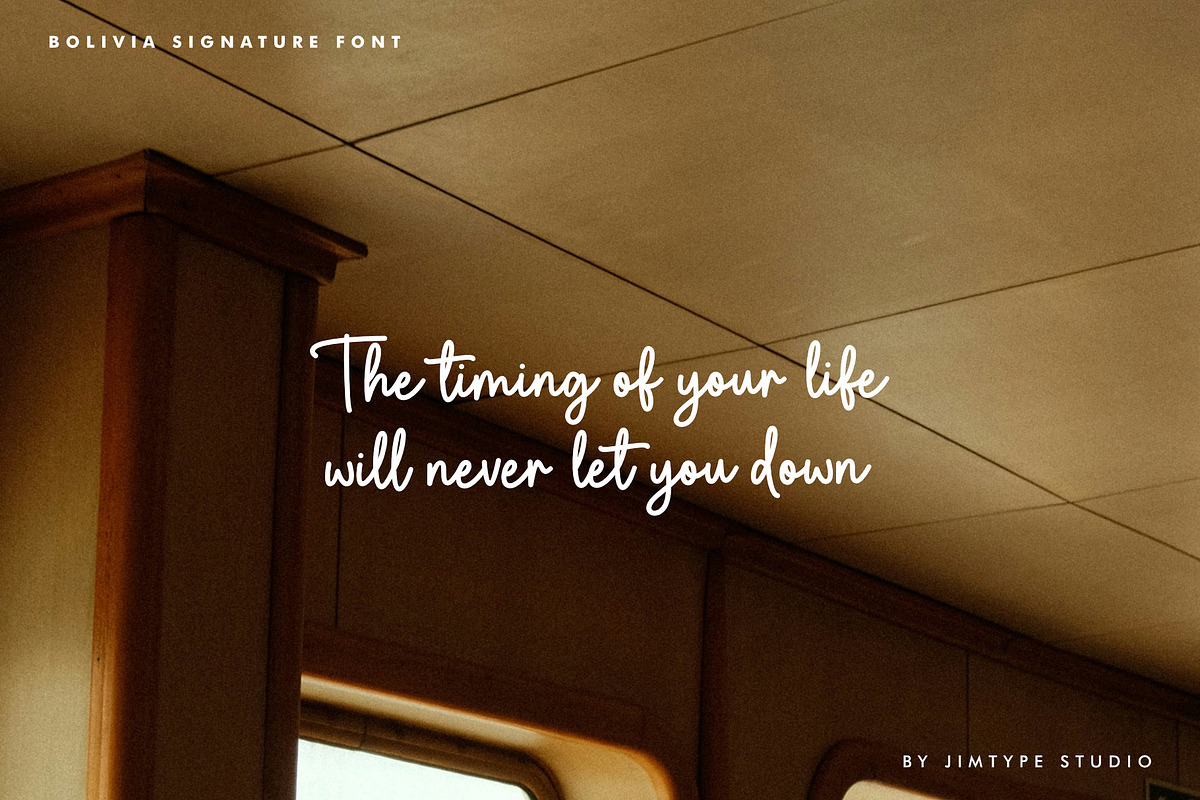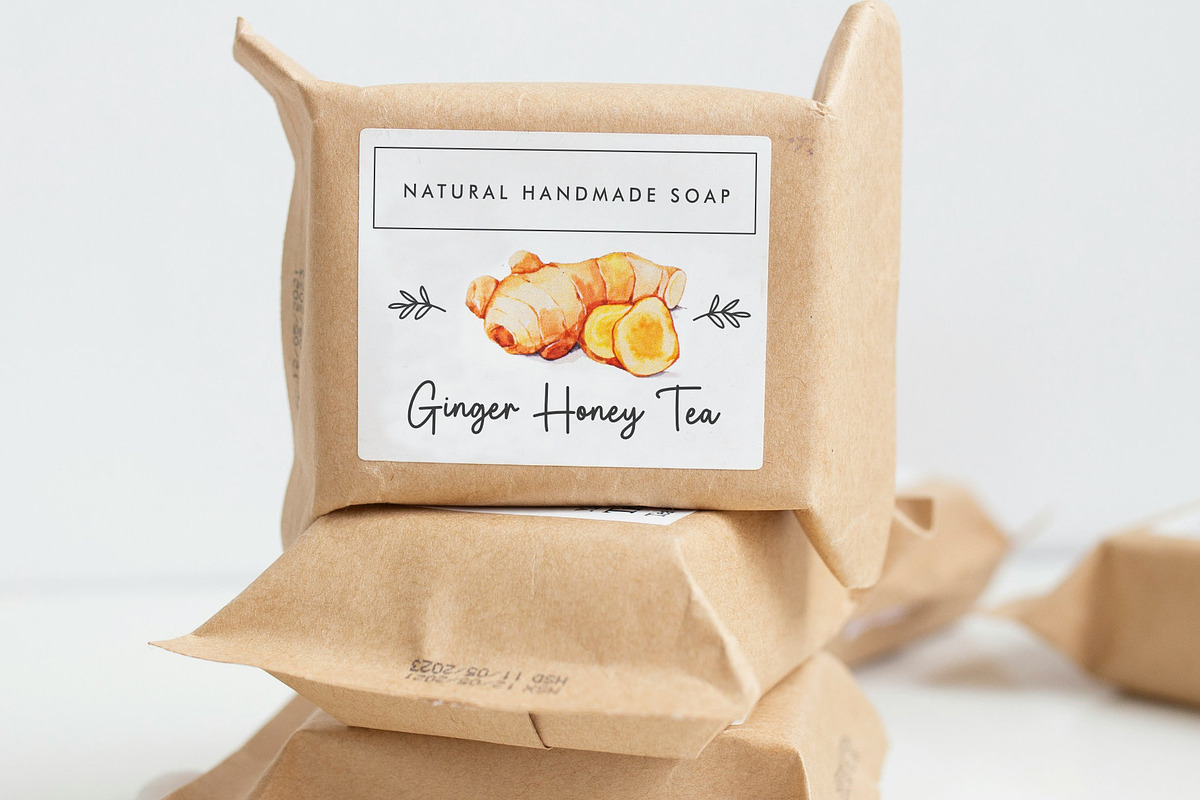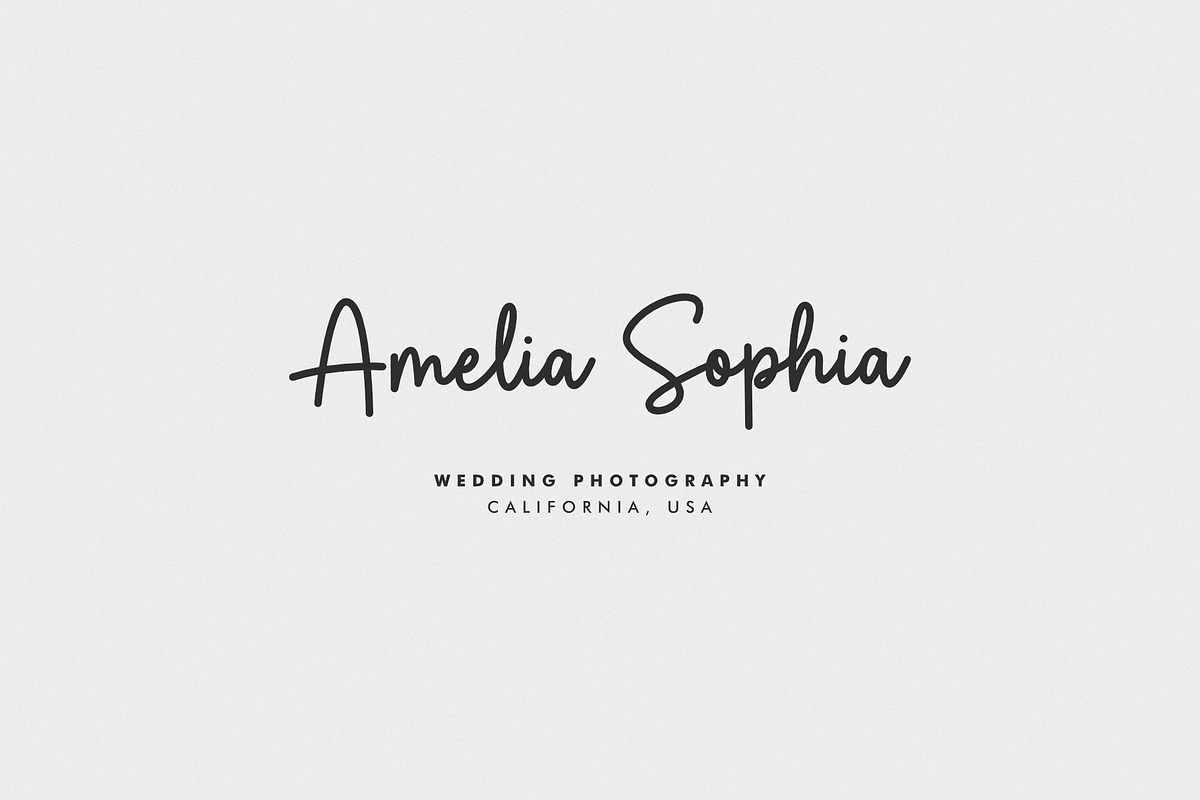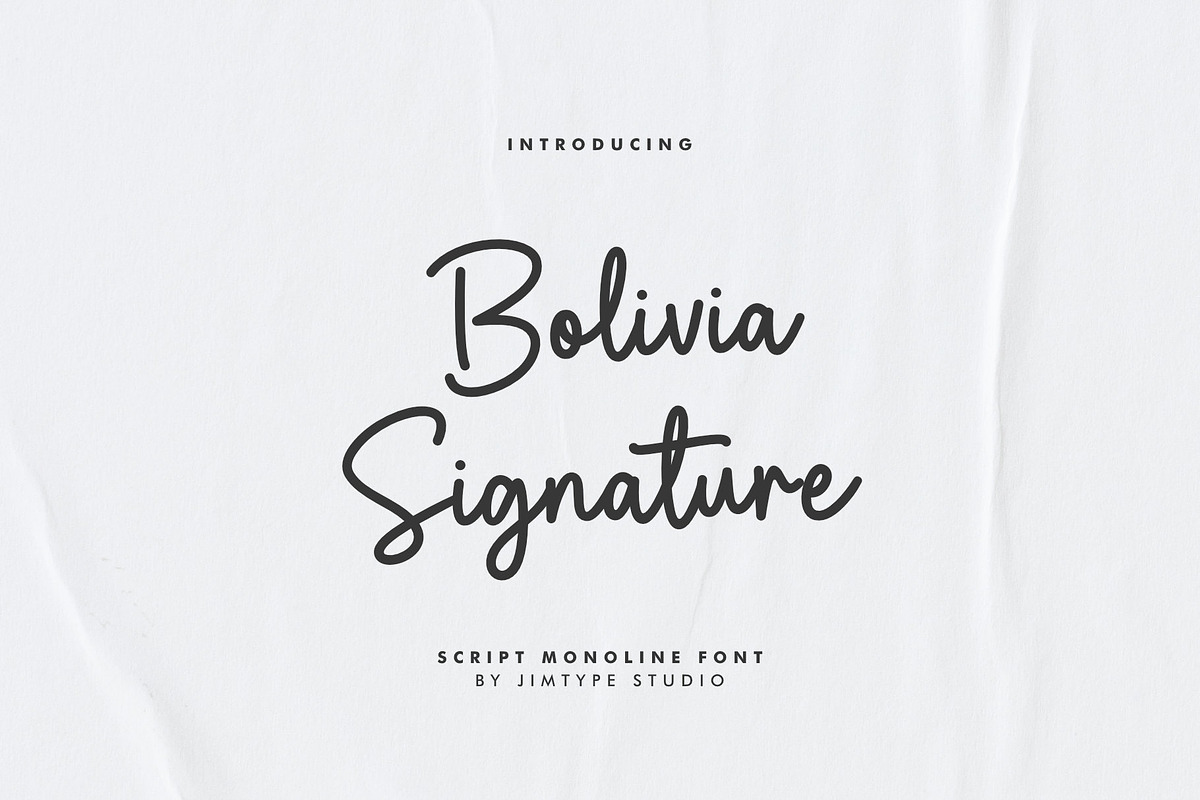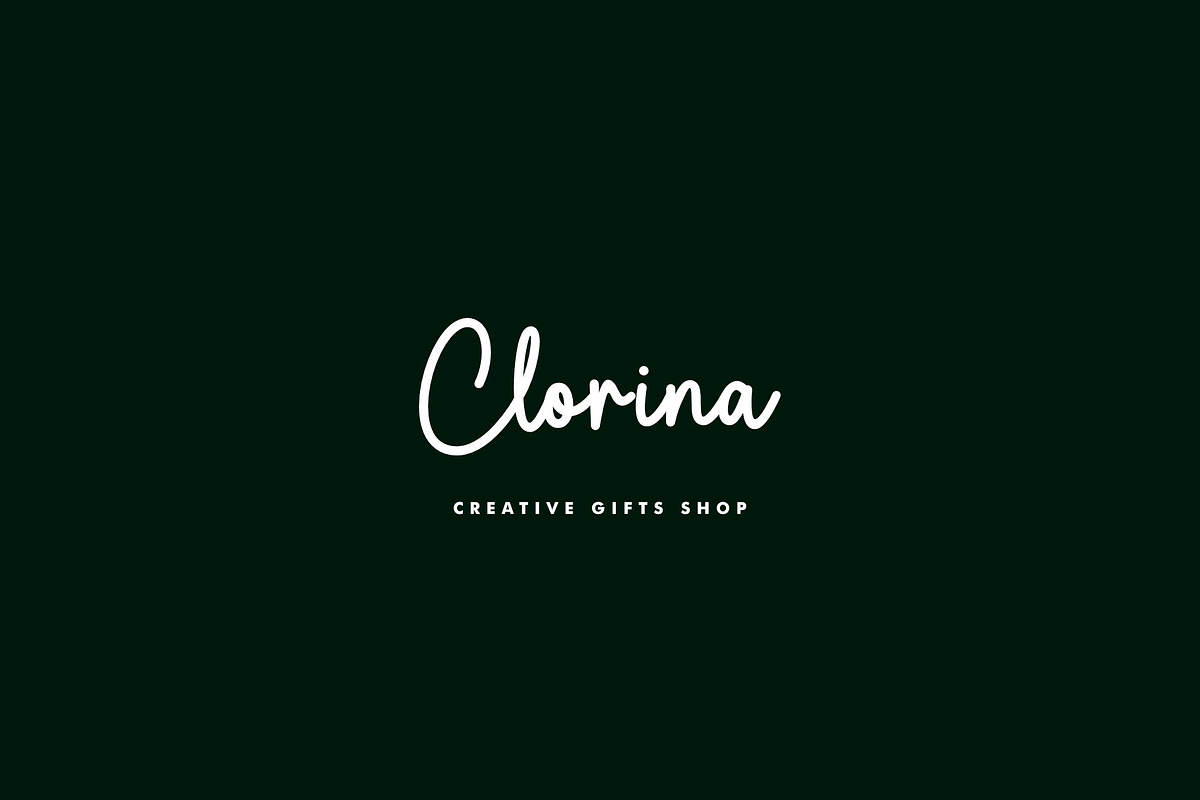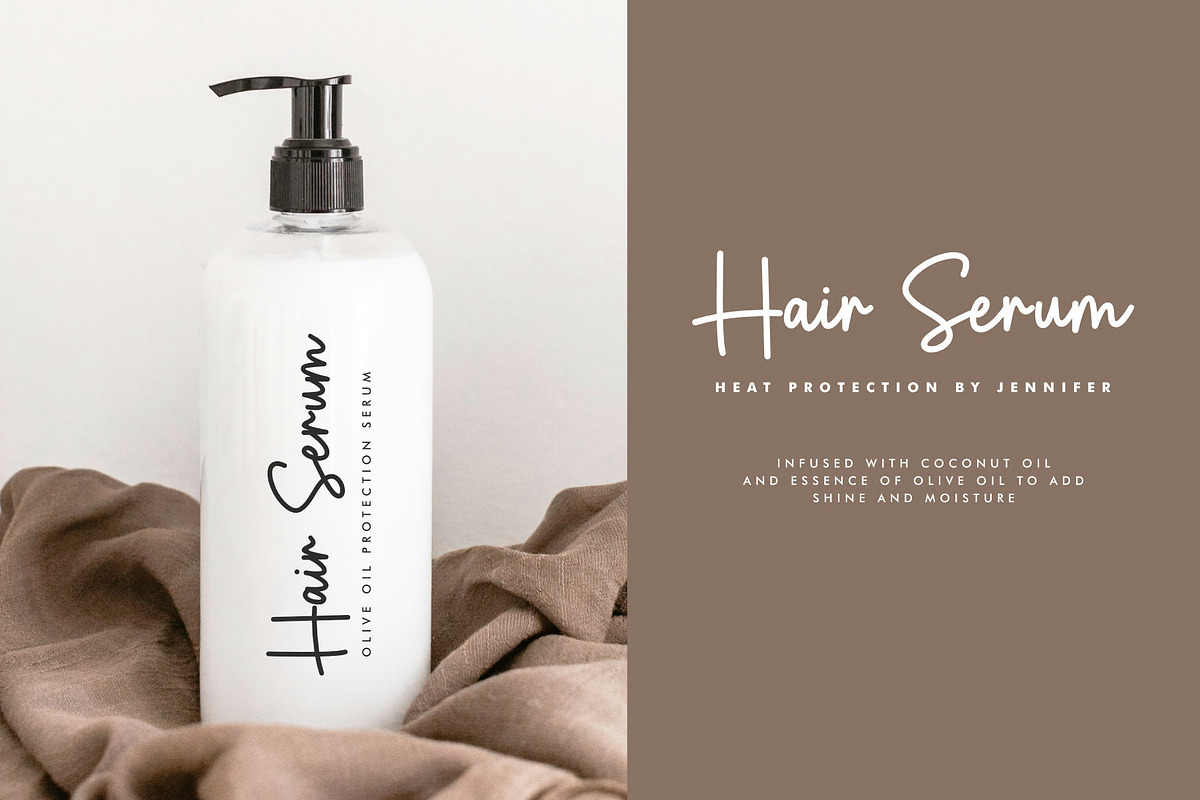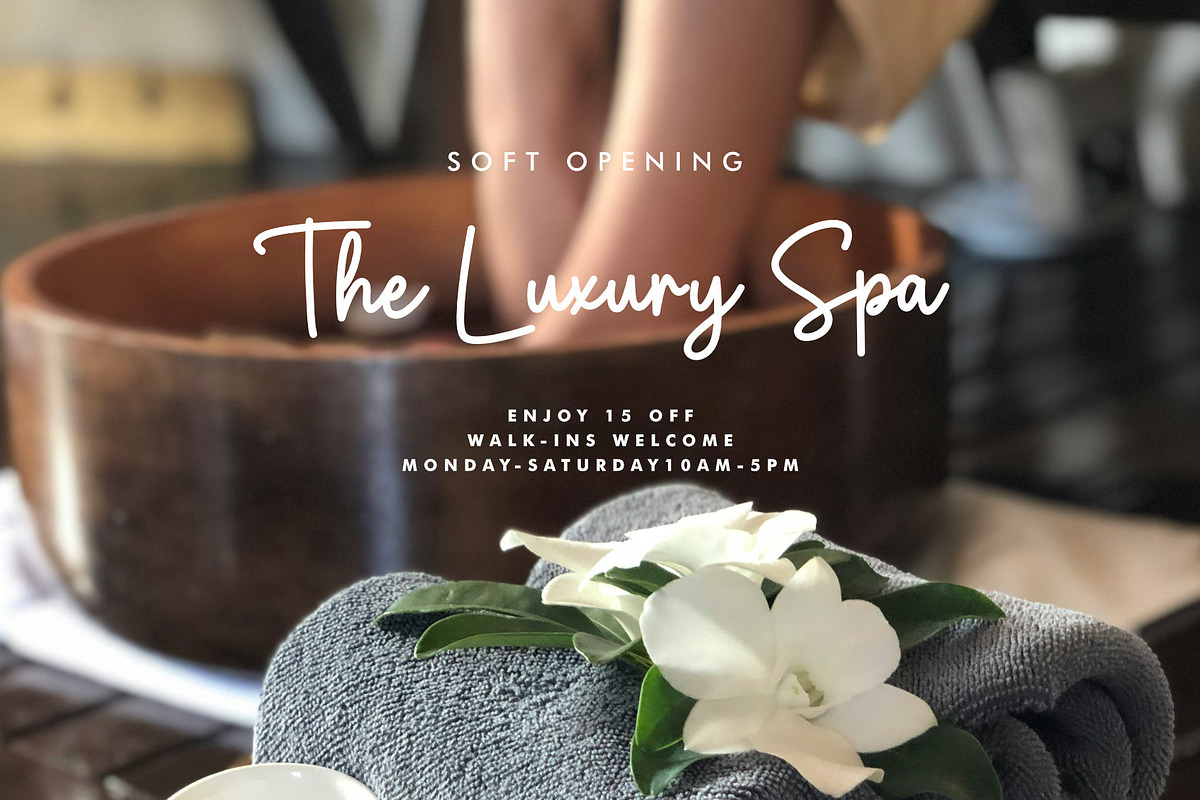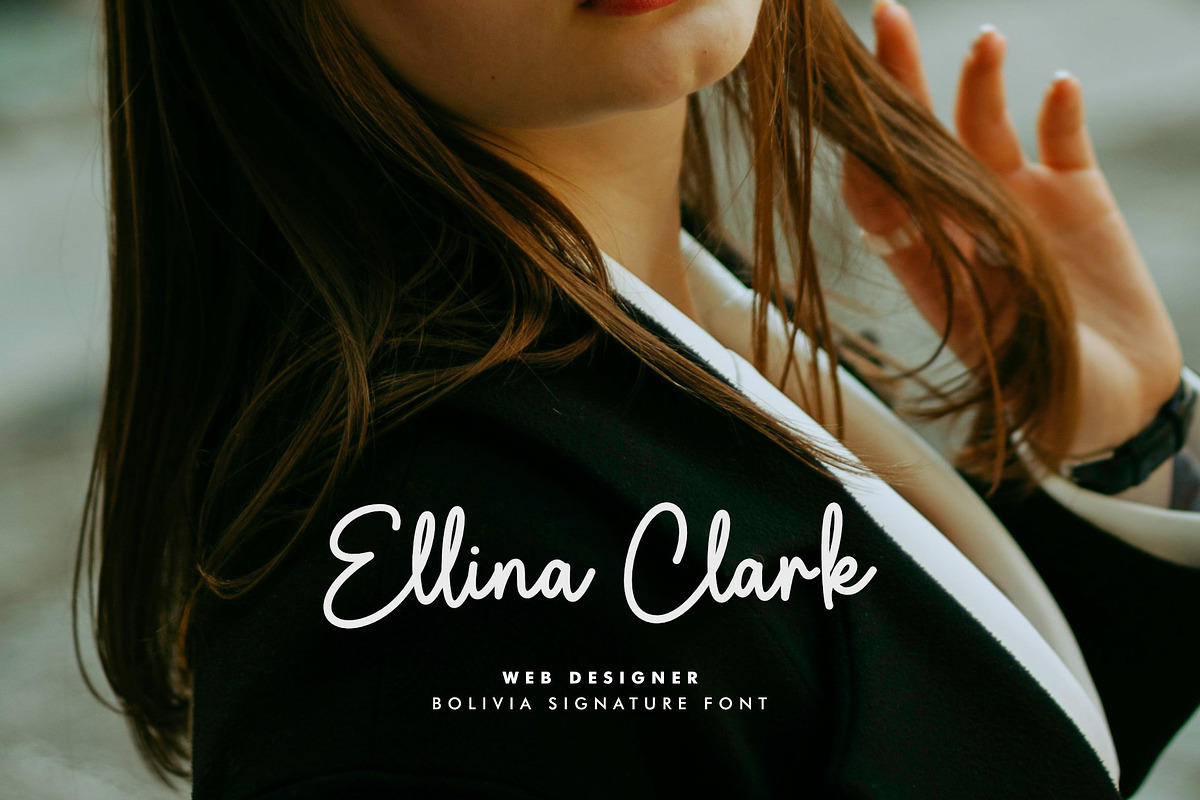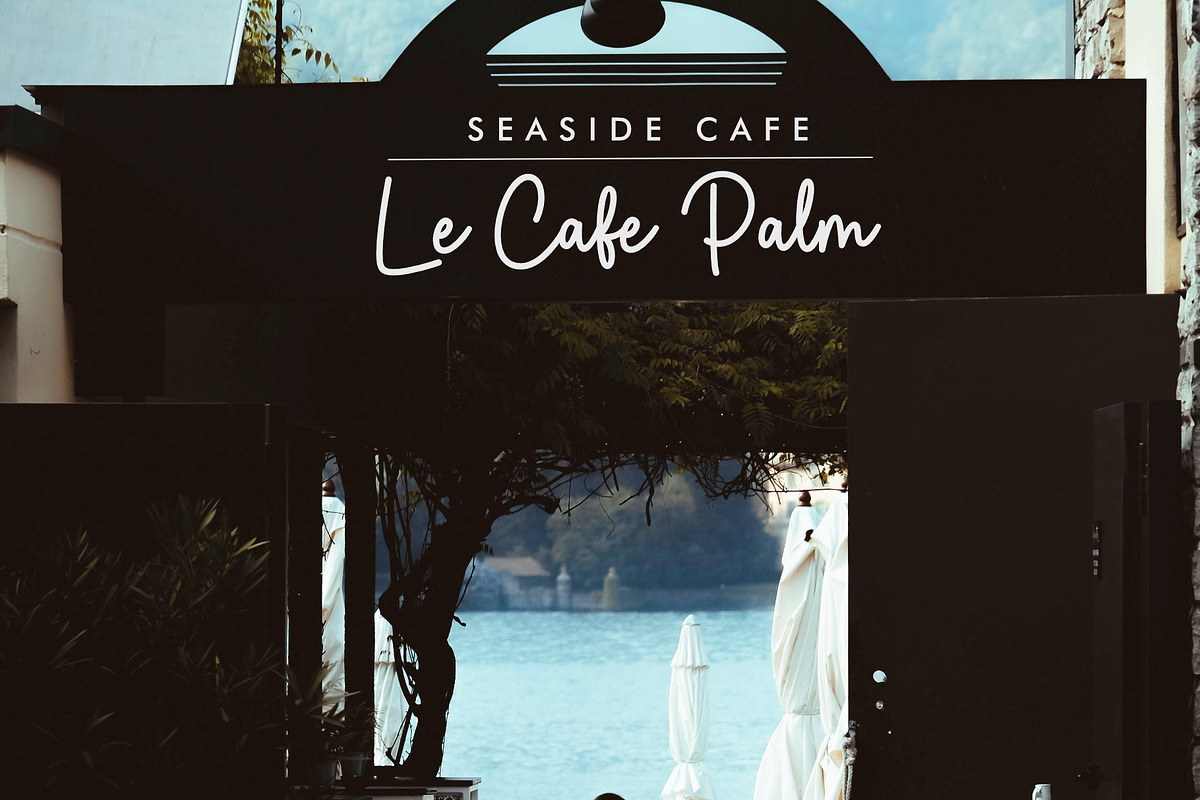
Bolivia Signature-Business Branding
Bolivia Script is a clean and casual font. This font is perfect for signature-style logos, display, branding, invitations, blogs, and planners. Adding a clean and casual signature-style touch to your projects couldn’t be easier!